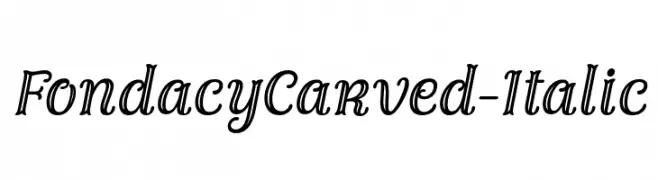
( Fonts by Graham Meade - GemFonts )
A rugged, textured font with a hand-carved, organic appearance.
( Fonts by Fernando Carvente - serifdechocolate.wordpress.com )
A bold serif font with a classic yet modern aesthetic.
( Fonts by Fernando Carvente - serifdechocolate.wordpress.com )
A modern sans-serif font with a slightly condensed style and medium contrast.
( Fonts by Fernando Carvente - serifdechocolate.wordpress.com )
A bold, dynamic font with thick strokes and a slight slant.
( - www.matiescanalesgonzalez.com )
An organic, tree bark-inspired font with intricate, hand-carved details.